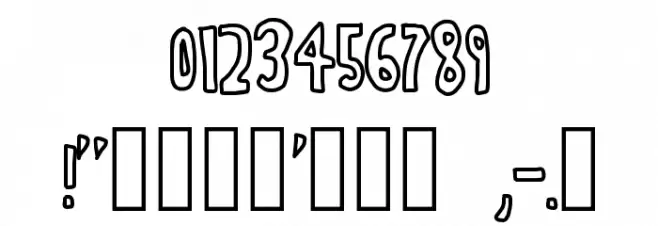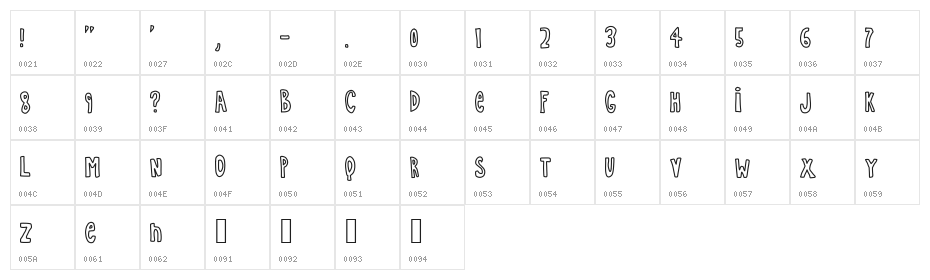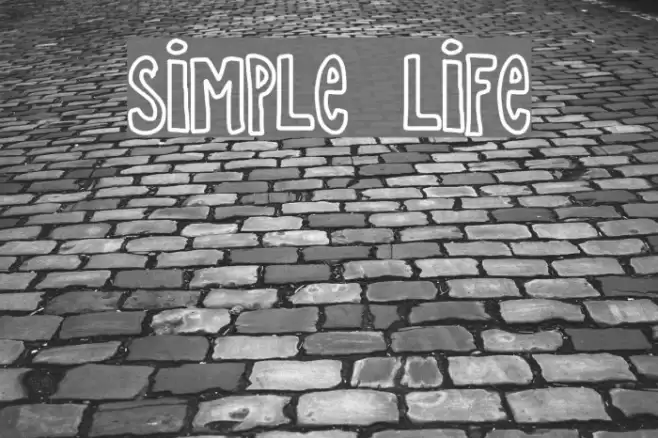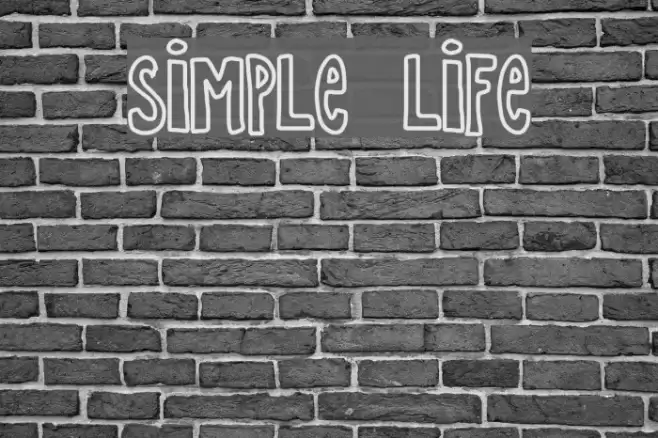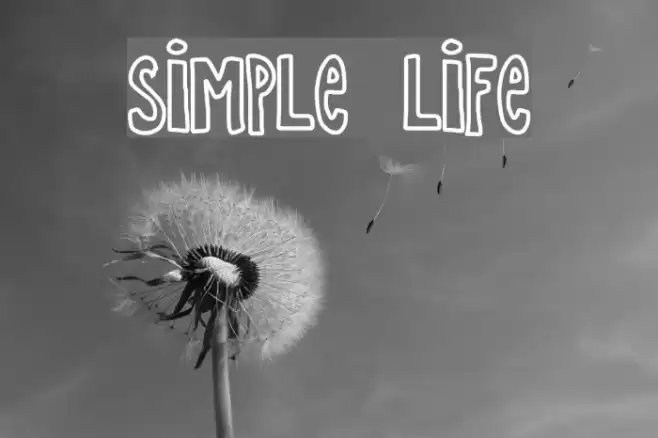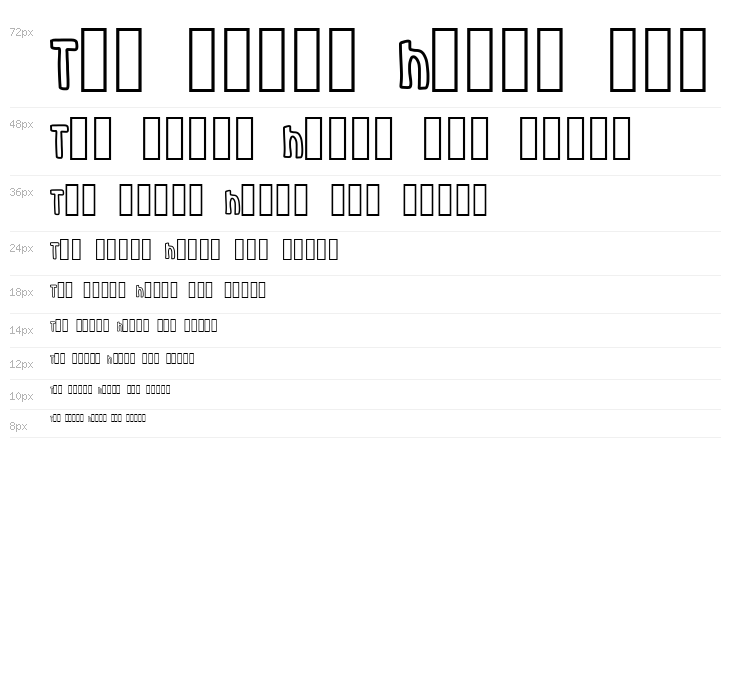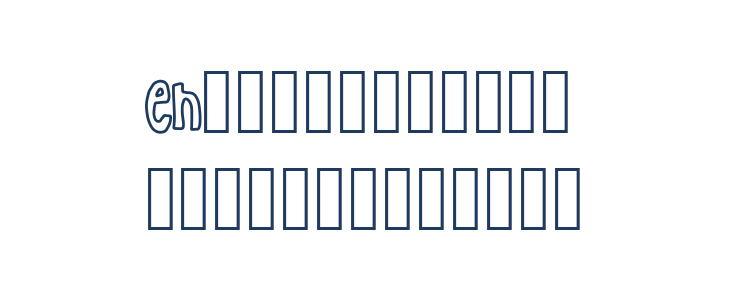
SIMPLE LIFE Font
SIMPLE LIFE Description
This playful and whimsical font features bold, rounded characters with a hand-drawn appearance. The uppercase letters are slightly irregular, giving them a casual and friendly vibe. The lowercase letters maintain the same playful style, with a consistent stroke width throughout. Numbers and special characters follow the same design principles, ensuring a cohesive look. This font is ideal for projects that require a fun and approachable aesthetic, such as children's books, playful branding, or creative posters.
| Proposed Projects | Children's books, playful branding, creative posters, casual invitations. |